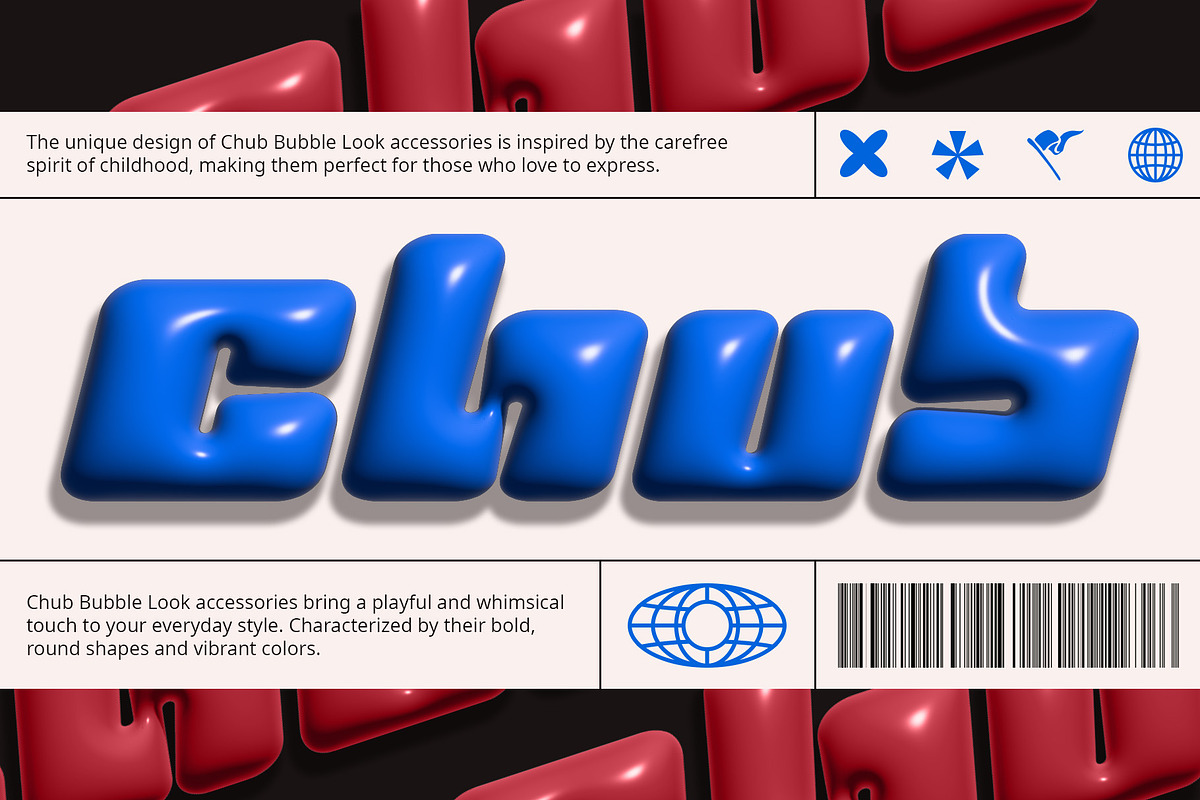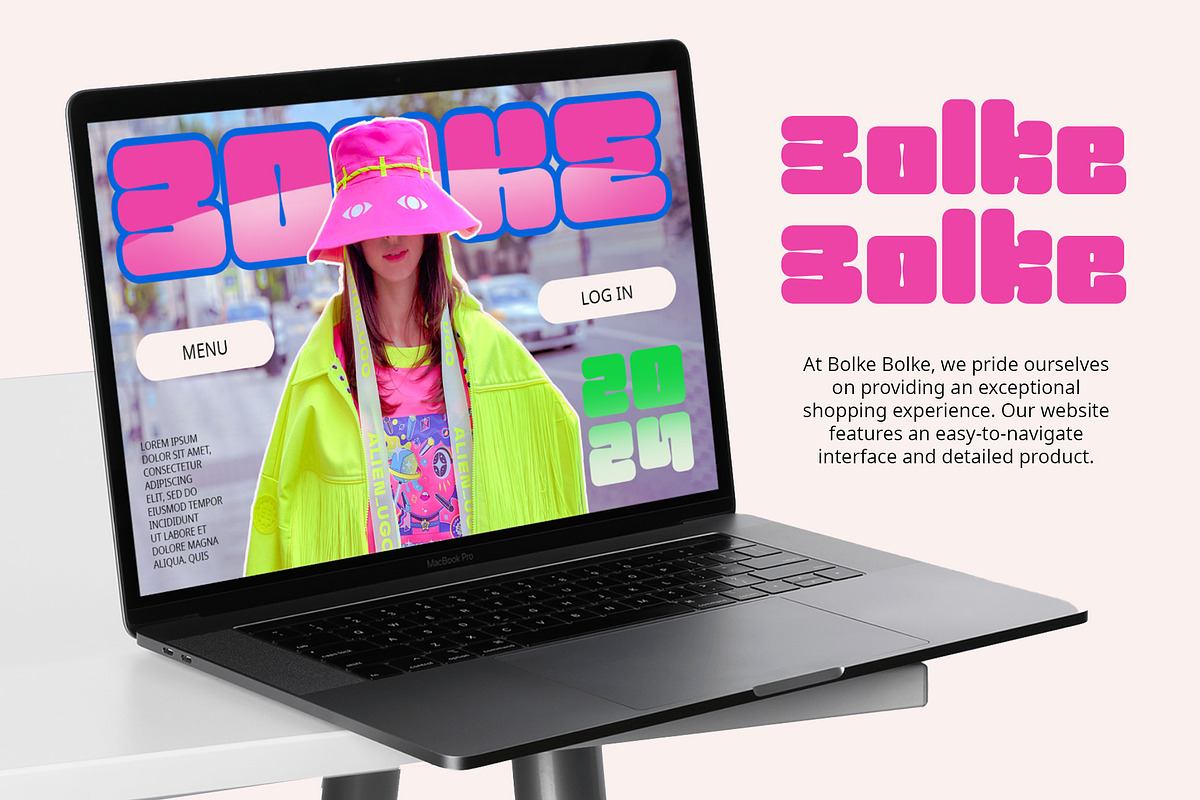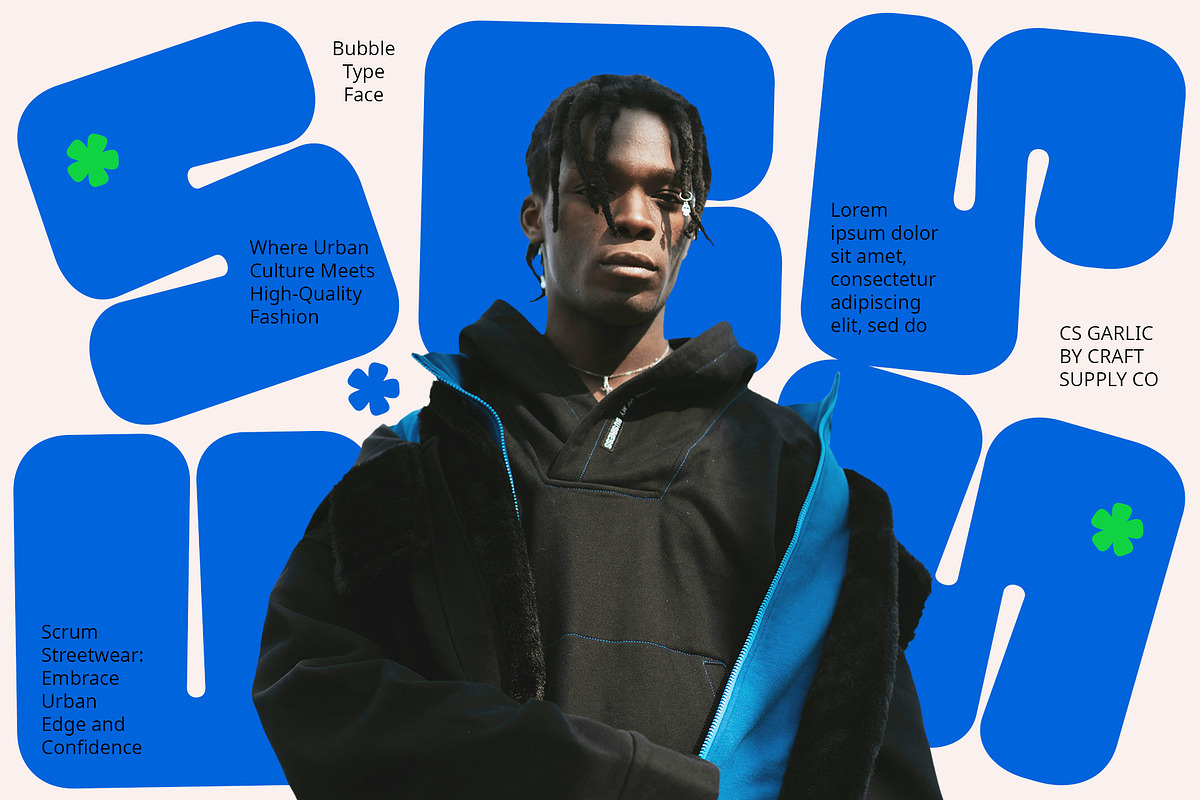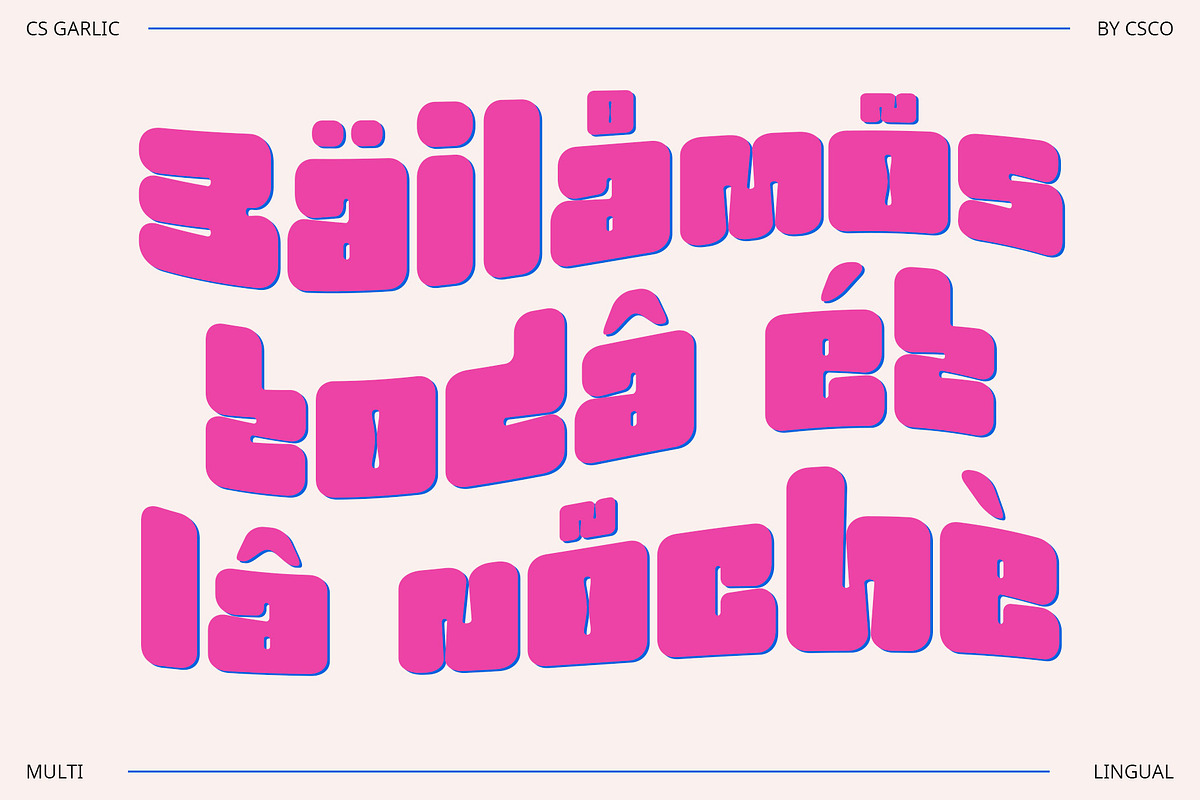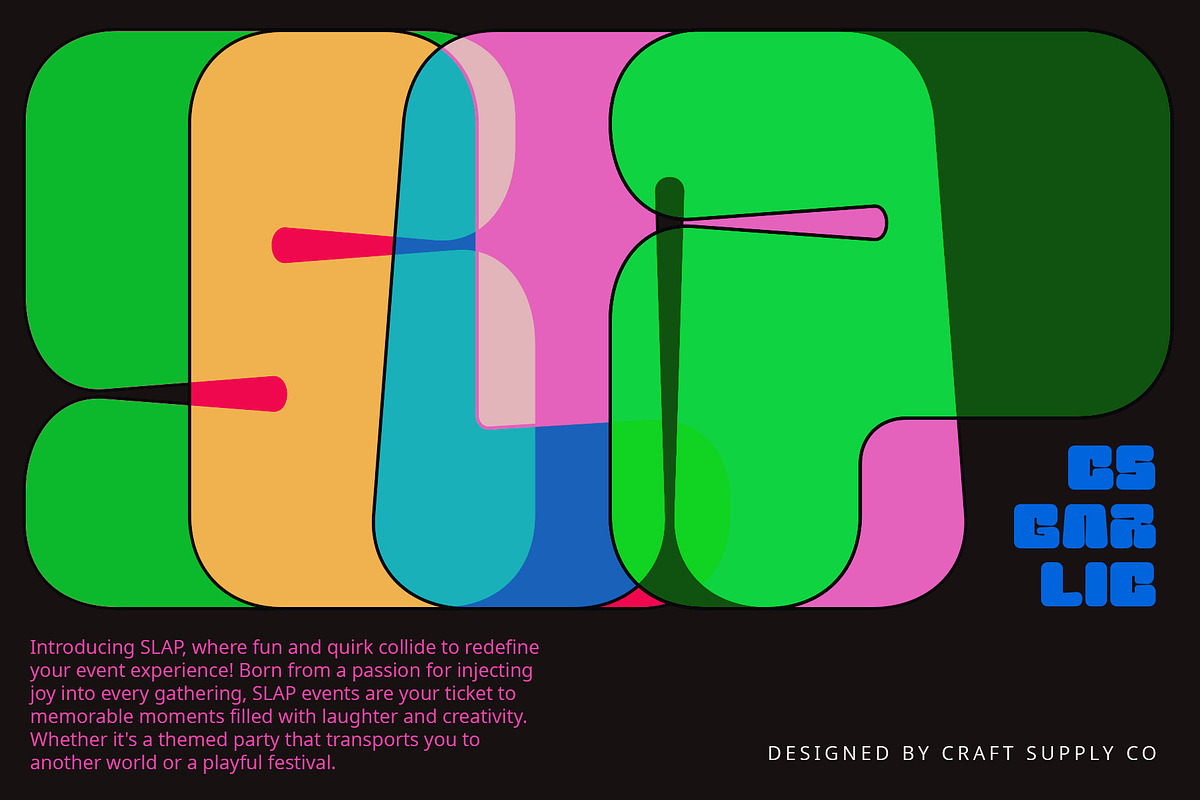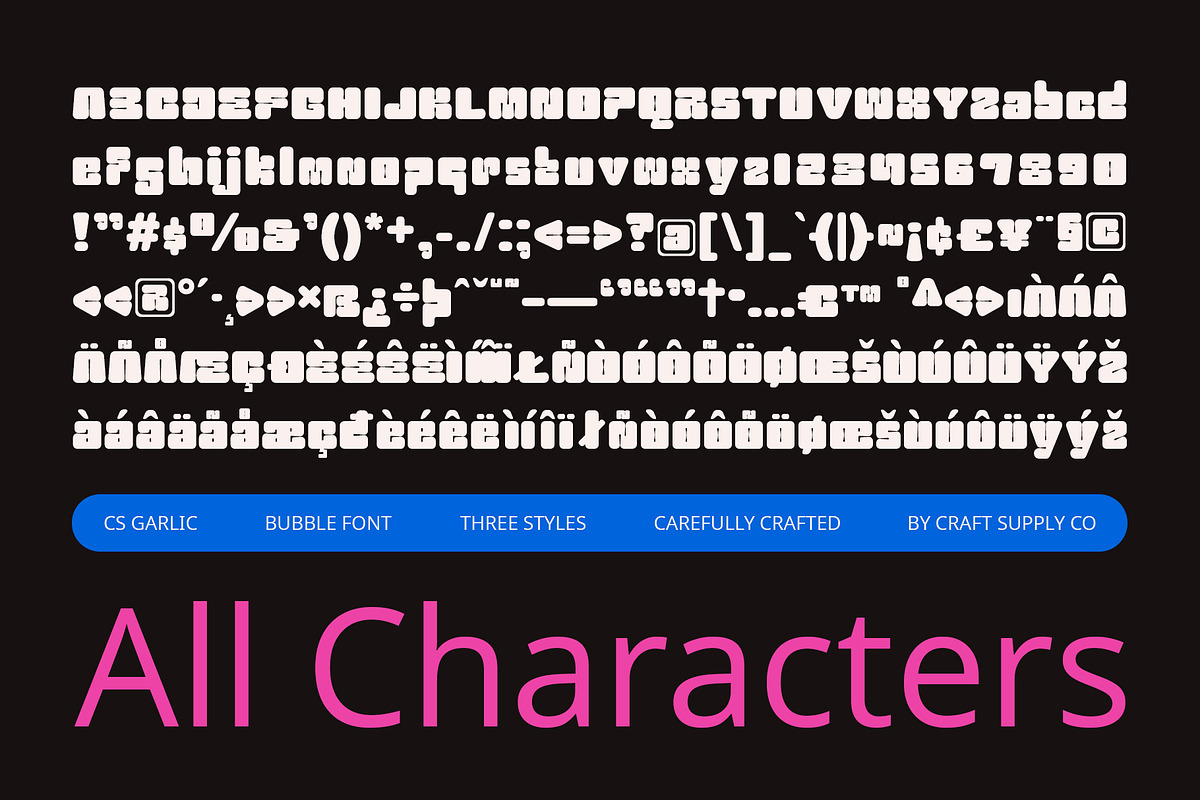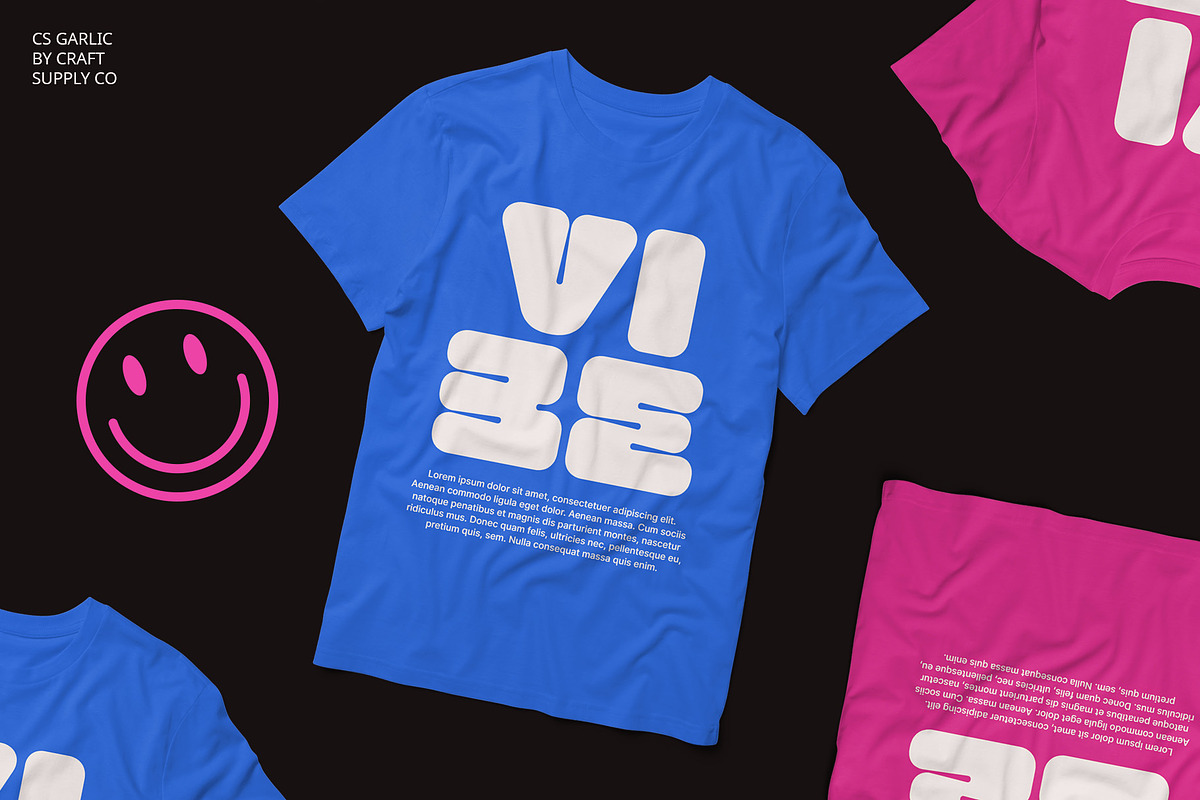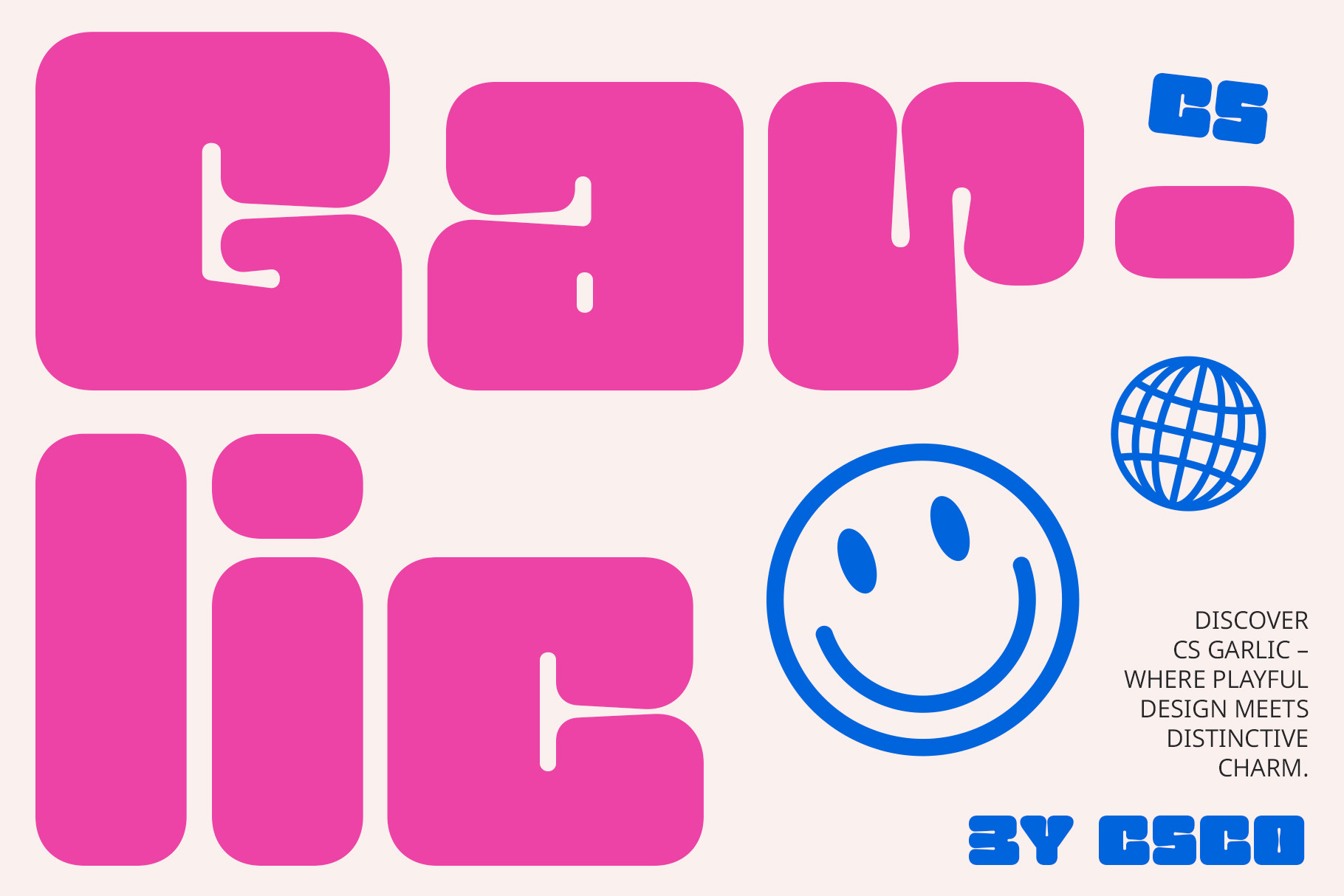
CS Garlic – Bubble Typeface
CS Garlic – Fun and Bold Bubble Typeface
Bubble Display Font with Funky Appeal
CS Garlic is a vibrant display font featuring bold and funky bubble shapes, designed to inject creativity and cheerfulness into your designs. Its eye-catching characters and prominent bubbles make it perfect for posters, advertisements, and branding that demand strong visual impact.
Perfect for Bold Statements
The bold and playful nature of CS Garlic makes it ideal for designs aiming to stand out. Whether used in posters, advertisements, or branding materials, this font ensures your message is delivered with clarity and fun.
Versatile and Lively
With its funky touch, CS Garlic brings a lively and energetic atmosphere to any design project. It’s well-suited for promotional materials for music events, festivals, children’s products, and any project that requires a dynamic and engaging visual presence.
Make Your Designs Pop
Choose CS Garlic to add a burst of creativity and cheerfulness to your designs. Whether you’re creating posters, advertisements, or promotional materials, this font guarantees to make a bold statement and captivate your audience with its fun and bold bubble shapes.
- CS Garlic Regular
- CS Garlic Italic
- CS Garlic ReverseItalic